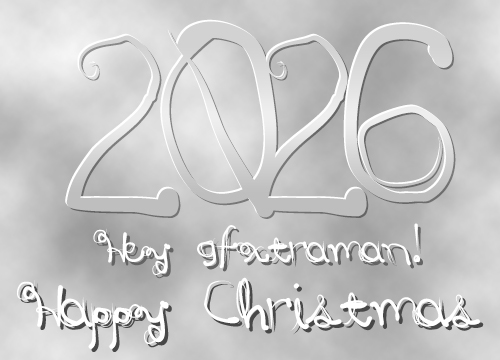
- LOLO Cursive is sweet & funky lettering written with distinct character. Create a memorable look with this flowering, freehand script. In this font I envisioned a style with a grassroots flavor, yet a fashionista's edginess. Small, distressed detailing contrasts beautifully with the rolling curves of this feminine hand-style. The strokes are punky yet refined - for widest appeal. LOLO Cursive is extended, containing West European diacritics & ligatures, making it suitable for multilingual environments & publications. Go ahead and have fun with it!